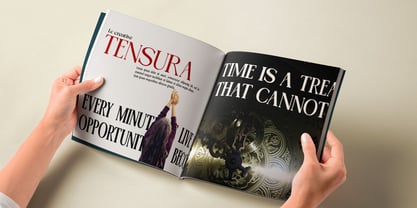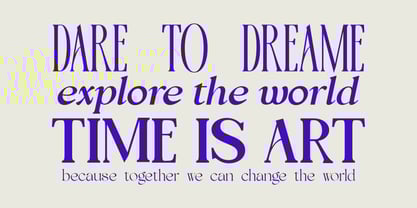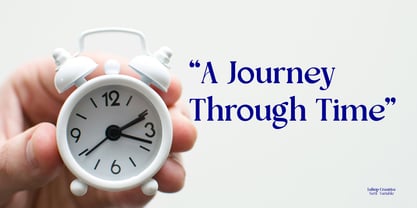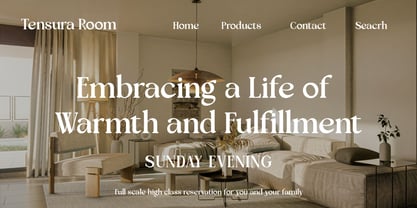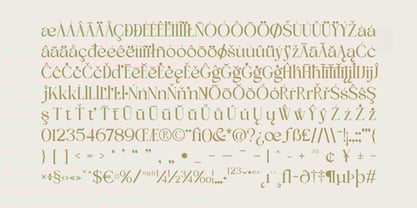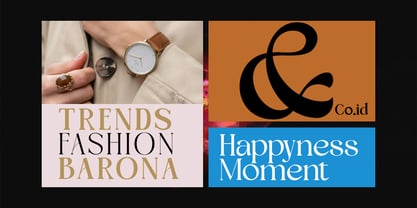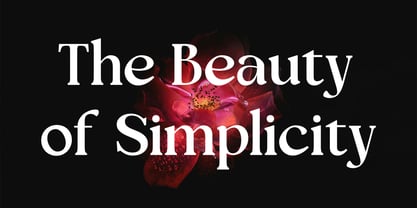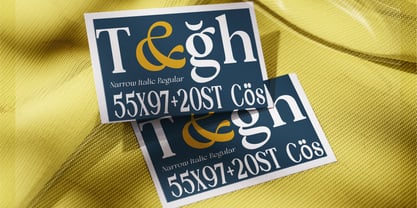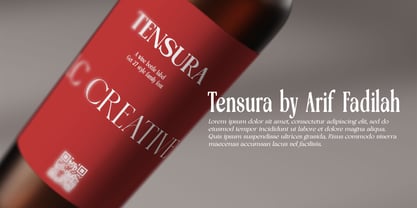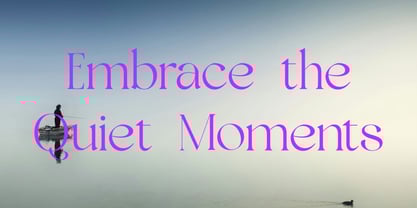
Tensura
La familia tipográfica Tensura fue diseñada por Arif Fadilah y publicada por Luhop Creative. Tensura contiene 30 estilos y opciones de paquete familiar.
Tensura Variable is a highly versatile font that offers 27 different styles, making it an excellent choice for a wide range of design needs. Its variable font technology allows for seamless adjustments between weights, widths, and other attributes, providing flexibility for various design projects.
27 Styles for Every Need:
With 27 different styles, including varying weights and widths, Tensura Variable can be customized to fit any design. Whether you need a light, regular, bold, or narrow style, this font offers a broad spectrum of choices to suit your specific requirements.
Perfect for Diverse Projects:
From websites and mobile apps to print materials like posters, brochures, and branding, Tensura Variable works across multiple mediums. Its adaptability makes it ideal for headlines, body text, logos, and even promotional materials.
Dynamic and Flexible:
The ability to adjust the font’s weight, width, and other properties ensures that designers can create designs that are both visually appealing and functional. Whether you’re working with large headings or fine print, Tensura Variable provides consistency and readability at any size.
Clean, Modern Design:
The font combines sleek, contemporary lines with rounded edges, giving it a clean and polished look that suits modern design trends. Its 27 styles allow for easy transitions across different visual tones, making it versatile enough for any creative project.
Enhanced Branding:
With its distinctive design and range of styles, Tensura Variable is perfect for establishing a strong brand identity. It can be used consistently across all branding materials while still allowing for variety and customization to reflect different aspects of your brand.
Overall, Tensura Variable offers the perfect combination of flexibility, style, and legibility, making it an ideal font for any designer looking to create dynamic, professional, and visually consistent projects across different platforms and media.